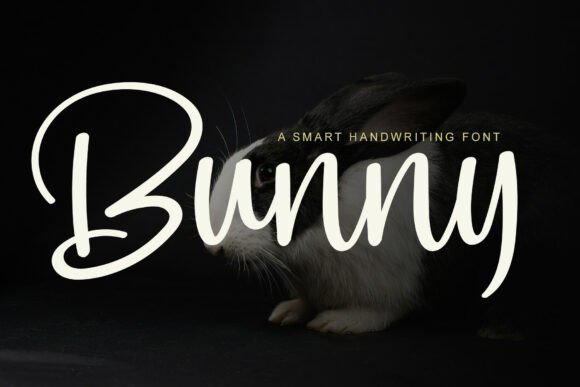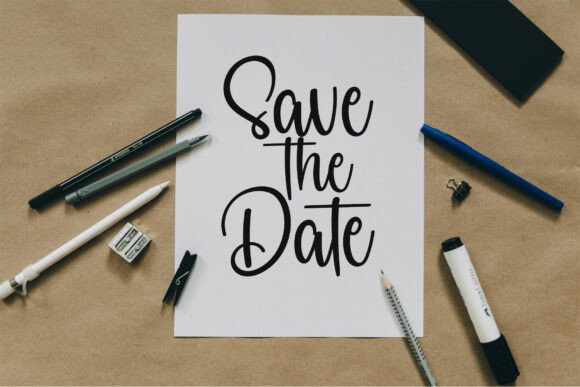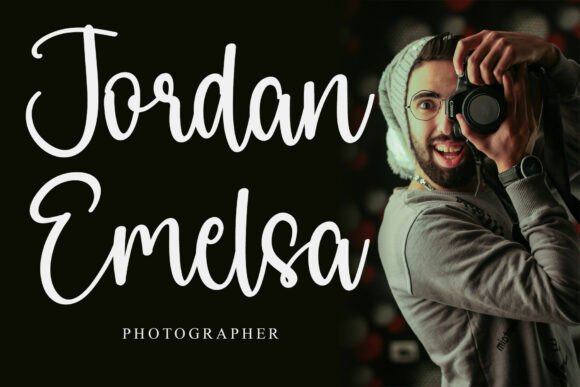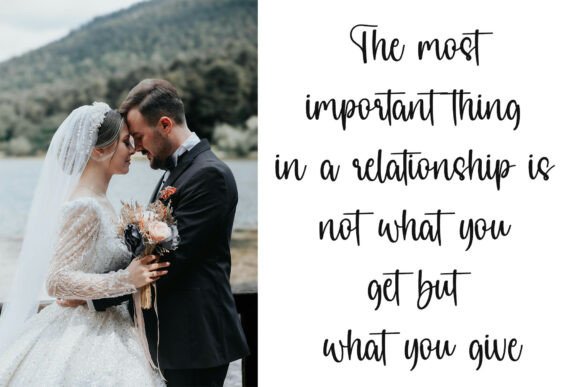
About the Bunny Font
The Bunny Font is here to transform your projects with its distinctive character and style. Bunny is a magical handwritten font carefully created to give a touch of elegance to your designs. Whether you’re looking for fonts for Instagram or calligraphy scripts for DIY projects, this font will turn any creative idea into a true piece of art!
Bunny Font Usage Examples